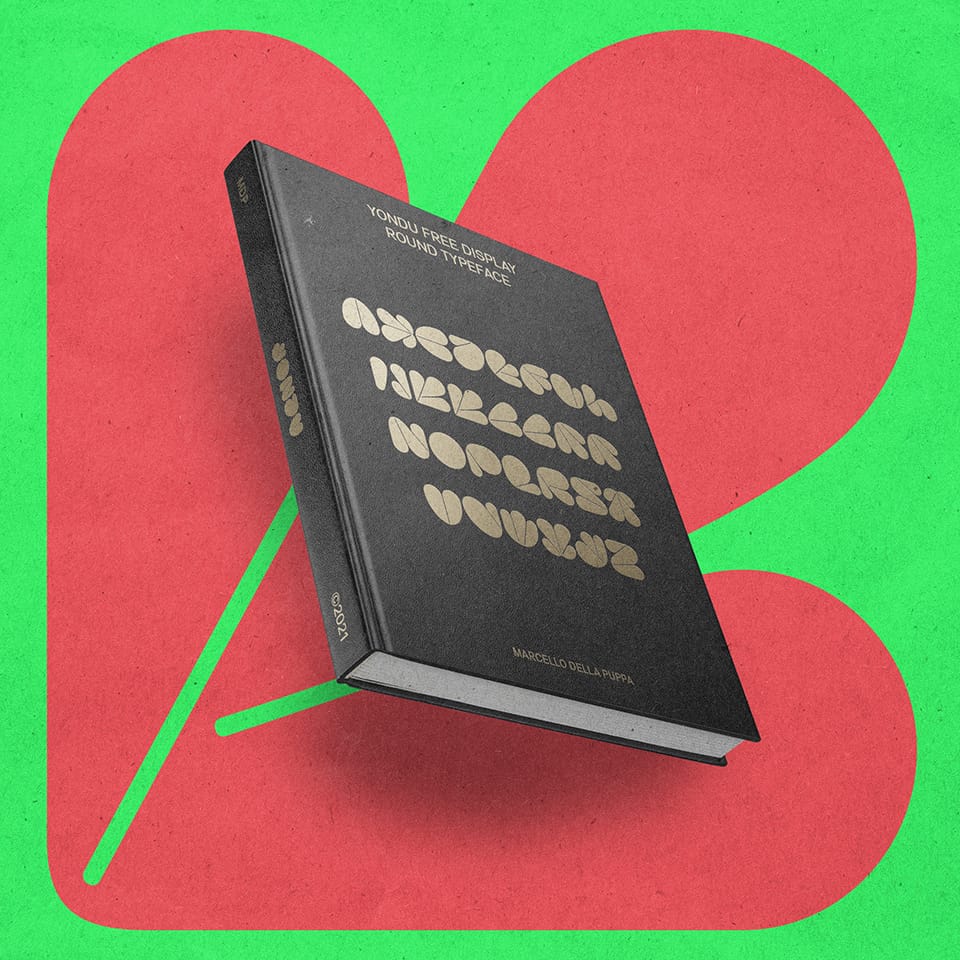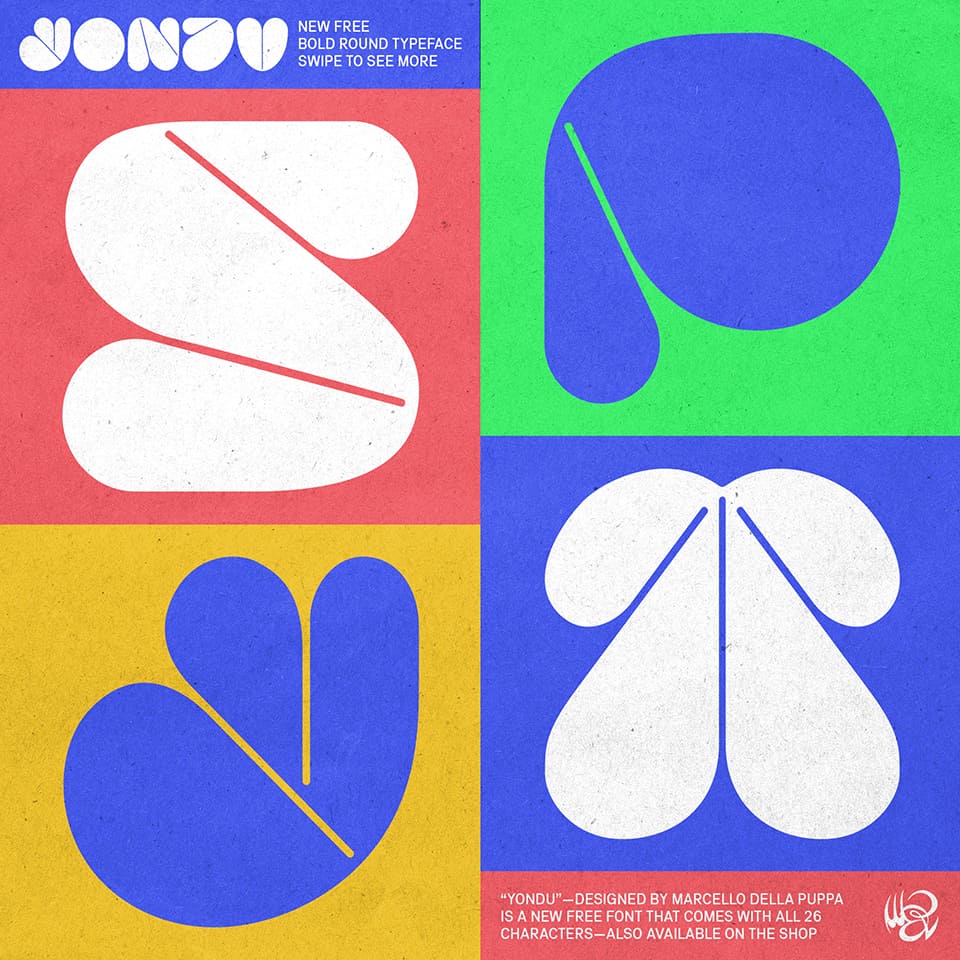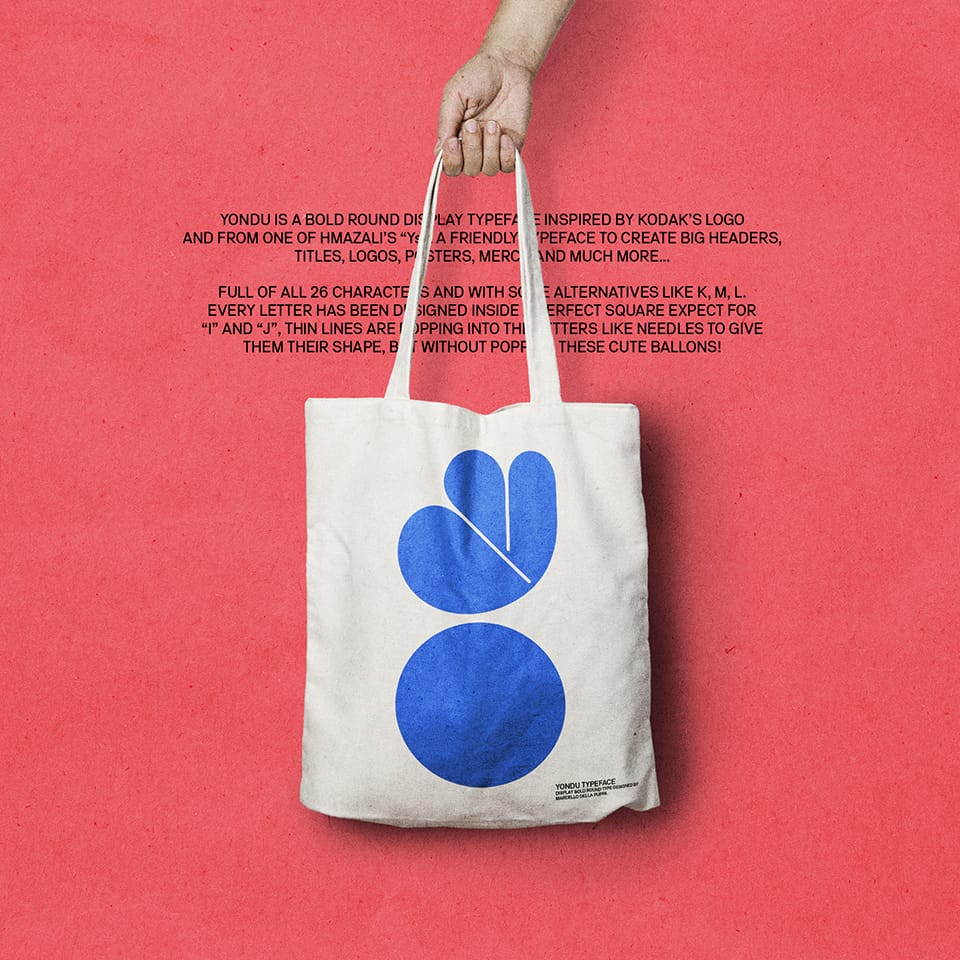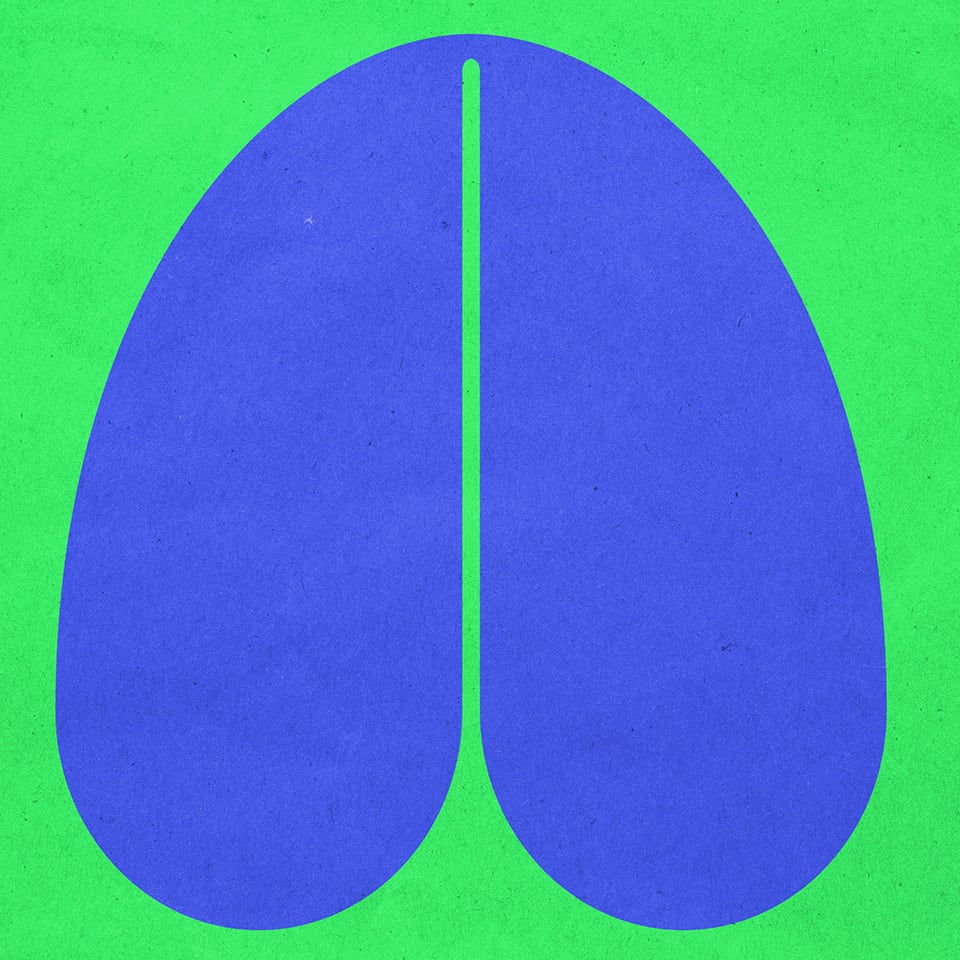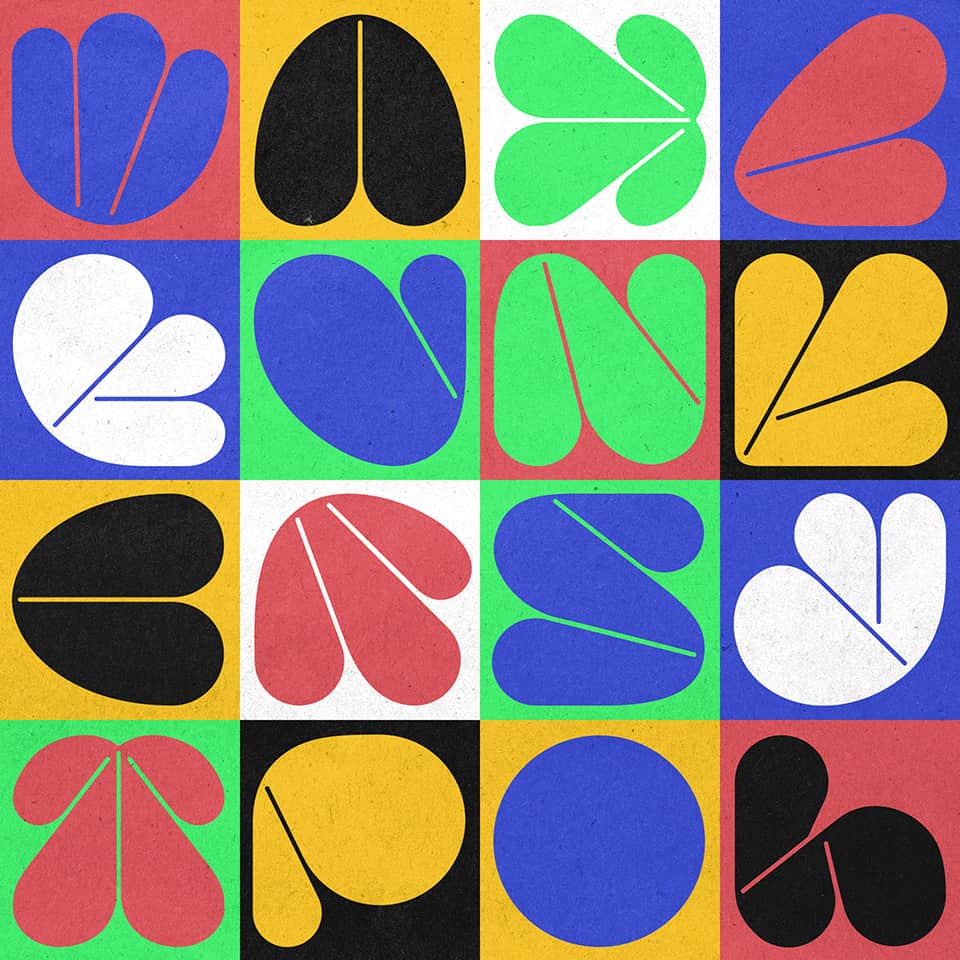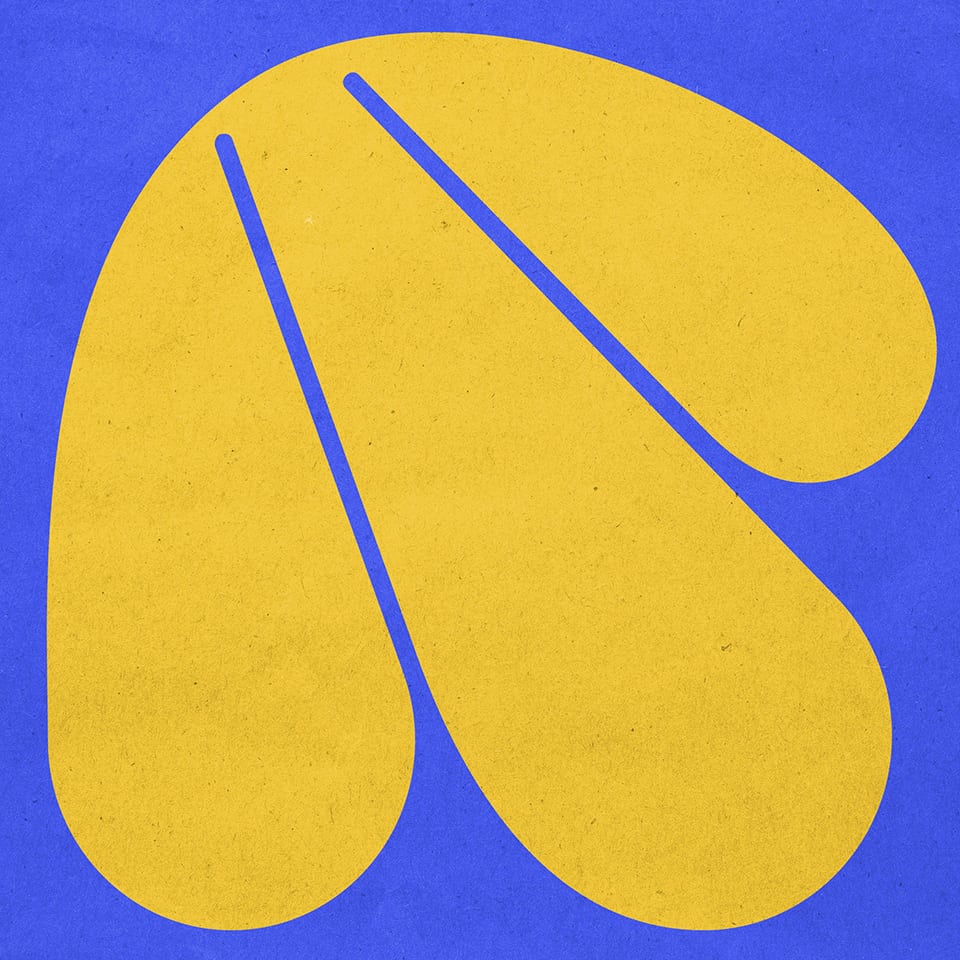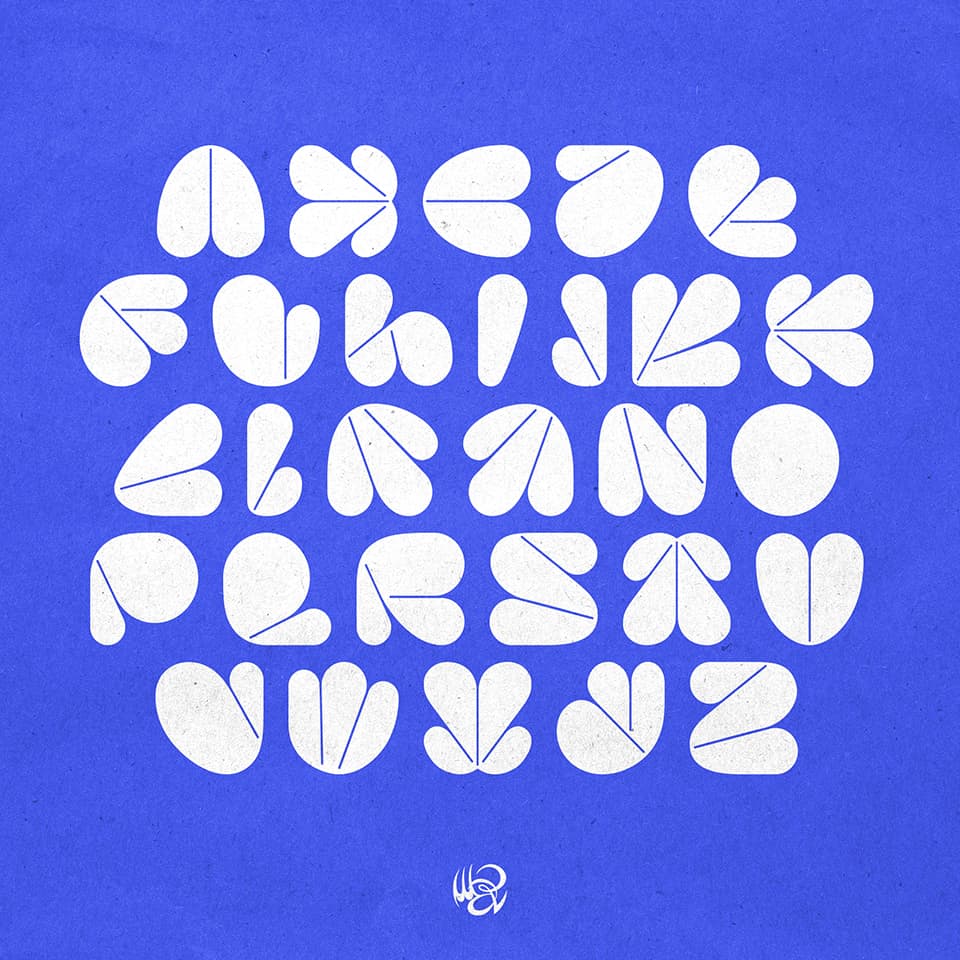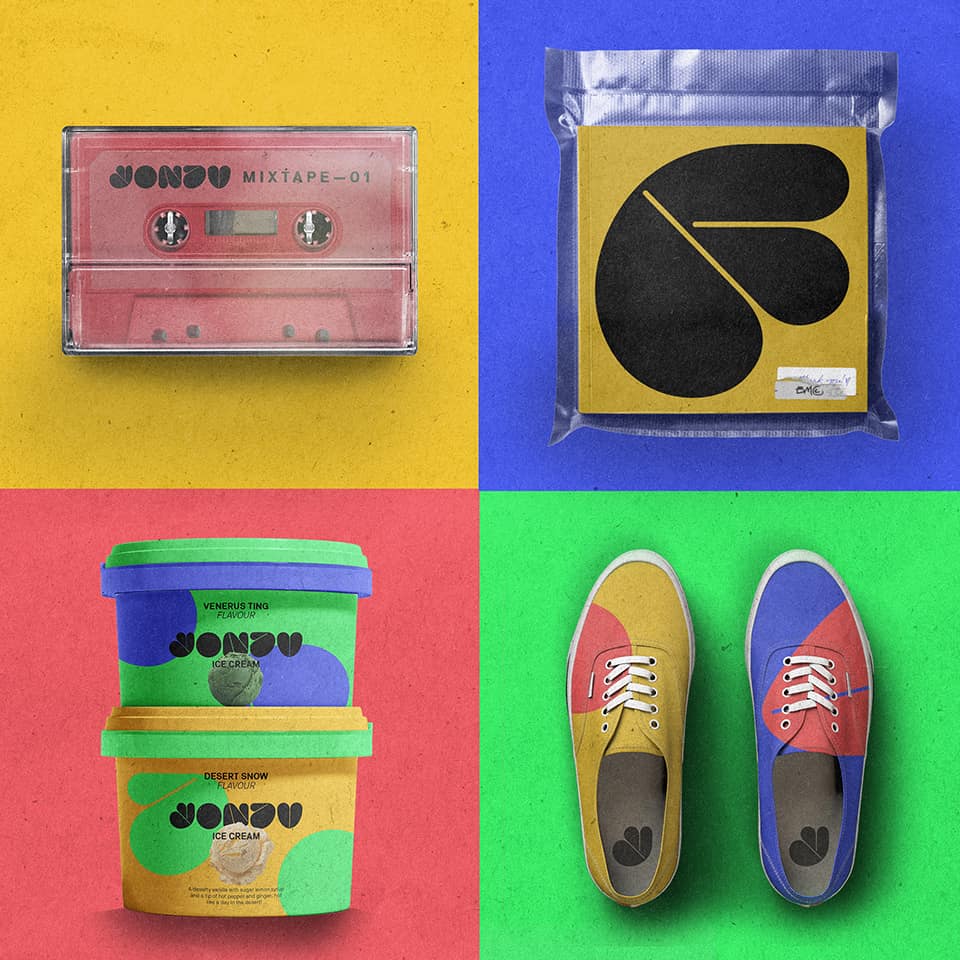
YONDU (Free)
Marcello Dellapuppa
YONDU is a monospaced, rounded display typeface by @marcellodellapuppa inspired by KODAK's logo and one of Hmazali's Y's. Yondu is your classic BFG (Big Friendly Giant) great for bold headlines, titiles, logos, posters and much more.
Featuring an all uppercase character set, YONDU also includes stylistic alternates for K, M and L.